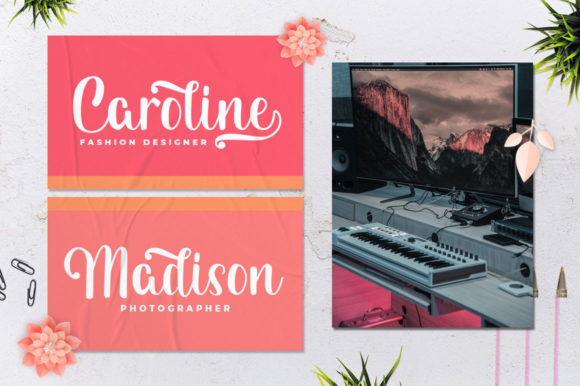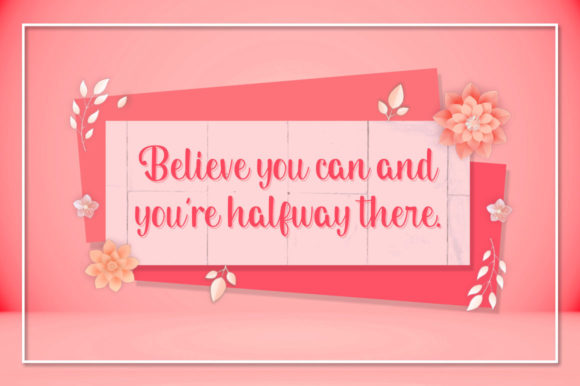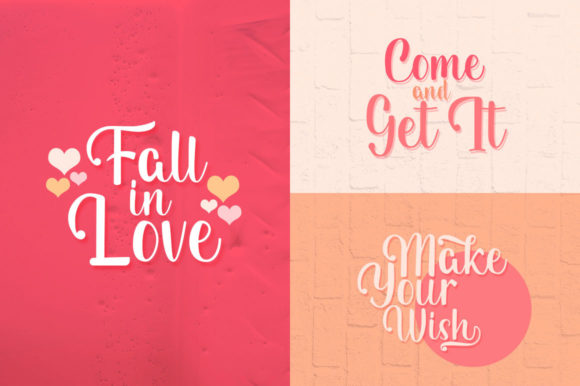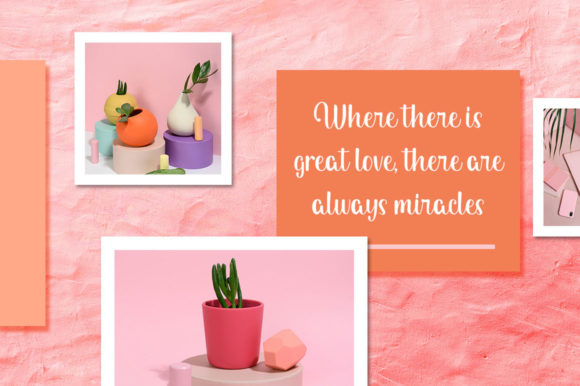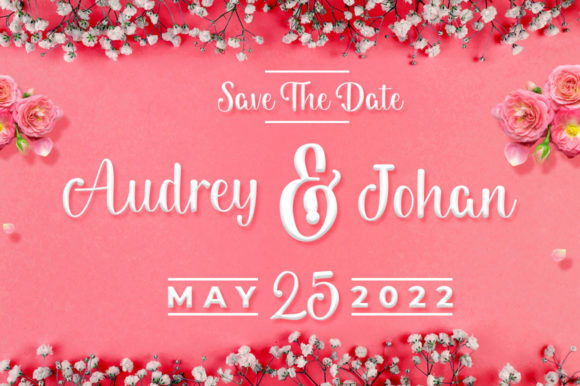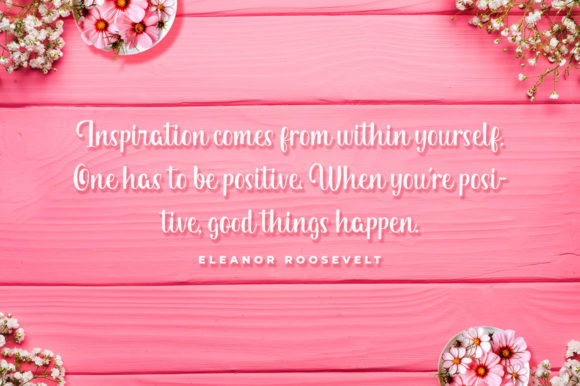
The Elegance of Benvollin Font: A Designer’s Delight
I still remember the project that led me to discover the Benvollin font. I was working on a branding project for a luxury client, and I was struggling to find the perfect font that exuded elegance and sophistication. The client wanted a font that would make their brand stand out, and I was determined to deliver. After hours of searching, I stumbled upon Benvollin, and it was love at first sight. In this article, I’ll share my experience with Benvollin, its features, and how to make the most of this beautiful font.
My Honest Review of Benvollin
So, what do I love about Benvollin? Here are a few things that make it a standout font:
• ✨ Elegant and flowing handwritten design
• ✅ Varying baseline for a natural, organic feel
• ✨ Smooth lines and gorgeous glyphs
• ✅ Stunning alternates to add some flair to your design
While Benvollin is an amazing font, there are a few quirks to be aware of:
• ⚠️ Some users may find the font a bit too ornate for certain projects
• 🤔 Limited use on smaller font sizes due to intricate details
The Story Behind Benvollin
Benvollin was designed with elegance and sophistication in mind. The font’s creator aimed to craft a font that would evoke a sense of luxury and refinement. With its smooth lines, gorgeous glyphs, and stunning alternates, Benvollin is perfect for designers, crafters, and creative hobbyists looking to add a touch of elegance to their projects.
What is Benvollin font? Benvollin is an elegant and flowing handwritten font featuring a varying baseline, smooth lines, gorgeous glyphs, and stunning alternates.
Is Benvollin font PUA encoded? Yes, Benvollin font is PUA encoded, making it easy to access glyphs and swashes.